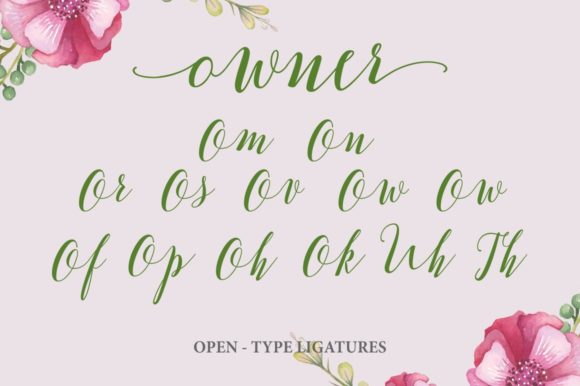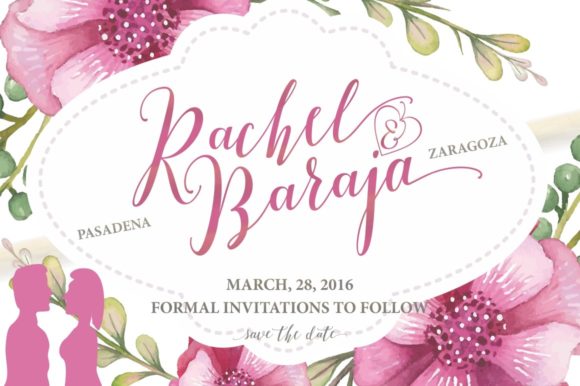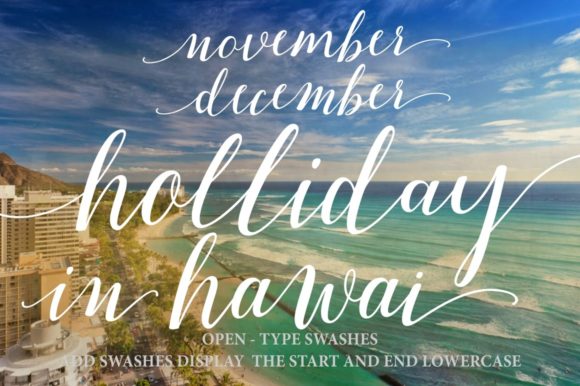
The Perfect Handwritten Touch: Bebby Washington Font
Have you ever sat down with a blank sheet of paper, a cup of coffee by your side, and a spark of creativity that refuses to be contained? You know the feeling – the one where every scribble and flourish feels like a piece of yourself, a reflection of your unique style and vision. For designers and creatives, that moment is just the beginning of a project that requires authenticity and simplicity. And that’s where the Bebby Washington Font comes in – a modern and original handwritten font that captures the essence of that creative spark.
This font is perfect for projects that need a touch of warmth and personality, from trendy wedding invitations to birthday cards and posters. With its cursive style and soft design, the Bebby Washington Font is a valuable addition to any designer’s toolkit. Whether you’re looking to add a personal touch to a client project or create something truly unique for yourself, this font is sure to deliver.
- Font Family: Bebby Washington Font is a unique, hand-drawn font with a playful and elegant touch.
- Unique Characteristics: Bebby Washington Font features a distinctive, hand-crafted feel, with subtle irregularities and imperfections that give it a personal touch.
As a designer, I was excited to dive into the Bebby Washington Font. The first thing that caught my eye was the unique blend of elegance and playfulness, which makes it perfect for a wide range of projects. ✨ The font’s subtle rounded edges and smooth lines give it a friendly, approachable feel that’s hard to resist.
One of the standout features of Bebby Washington is its versatility. It’s suitable for both modern and traditional designs, making it a great addition to any designer’s toolkit. ✨ The font is also highly legible, even at smaller font sizes, which is a must-have for any font.
However, there are some limitations to be aware of. ⚠️ One of the main issues is that Bebby Washington can feel a bit overused, especially in the realm of digital design. With so many similar fonts on the market, it’s not uncommon to see Bebby Washington used in a multitude of projects. Additionally, the font may not be the best choice for projects that require a more formal or serious tone.
Overall, I think Bebby Washington is a solid choice for designers looking for a versatile, friendly font. While it may have some limitations, its unique blend of elegance and playfulness makes it a great addition to any design project.
- ✨ Unique blend of elegance and playfulness
- ✨ Highly legible, even at smaller font sizes
- ✨ Suitable for both modern and traditional designs
- ⚠️ May feel overused in certain contexts
- ⚠️ May not be suitable for formal or serious projects
Use Bebby Washington Font for designs that require a playful and elegant touch, such as:
Remember to pair Bebby Washington Font with complementary fonts and colors to create a visually appealing design.